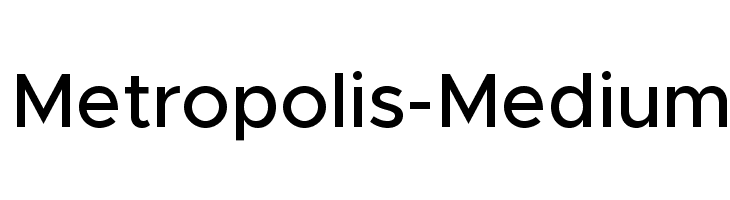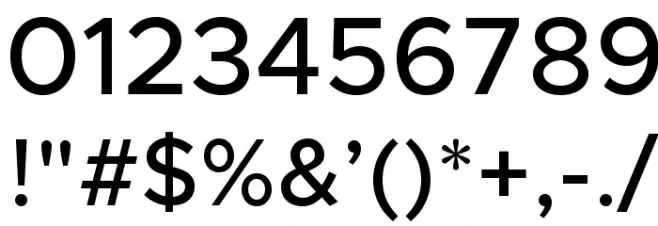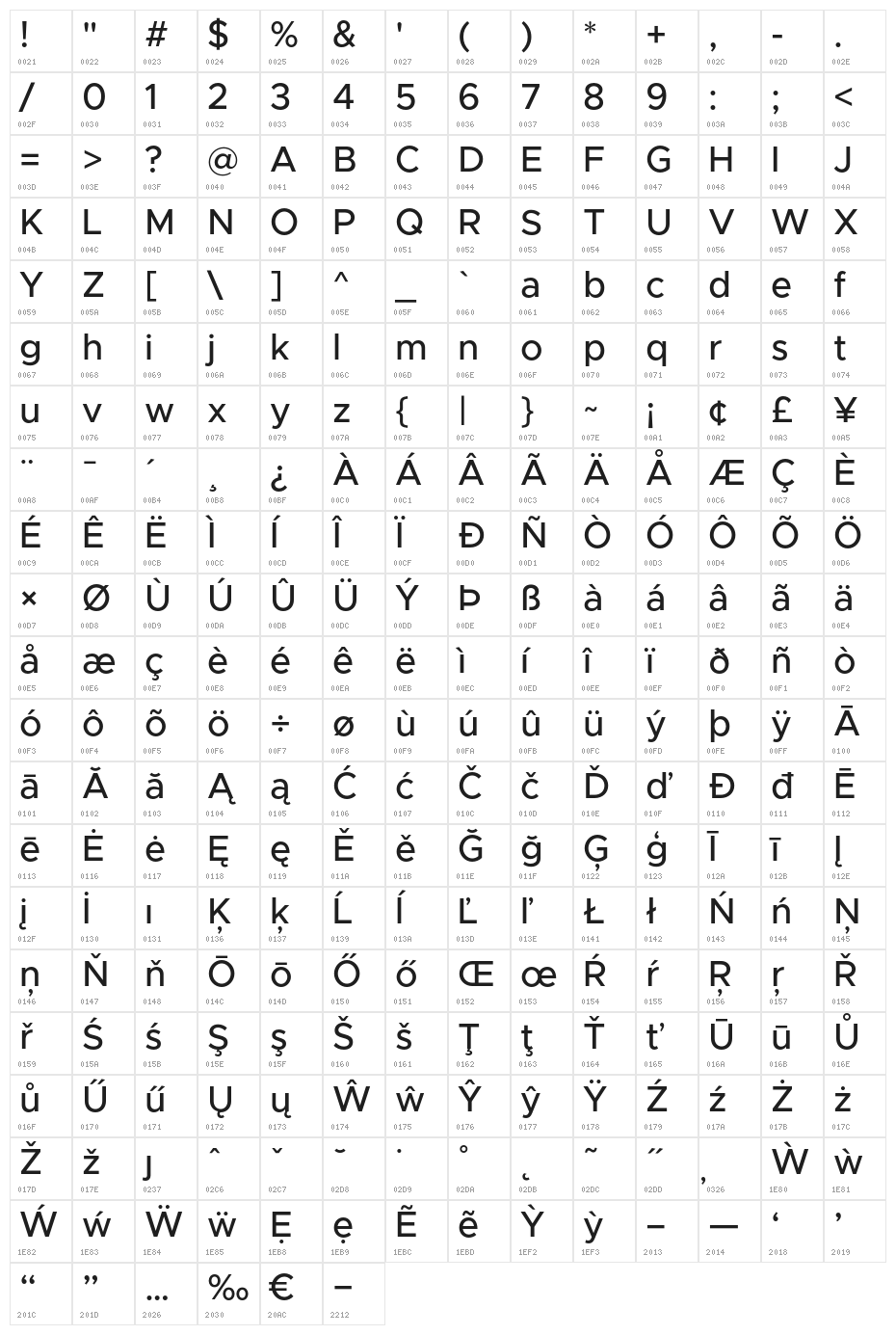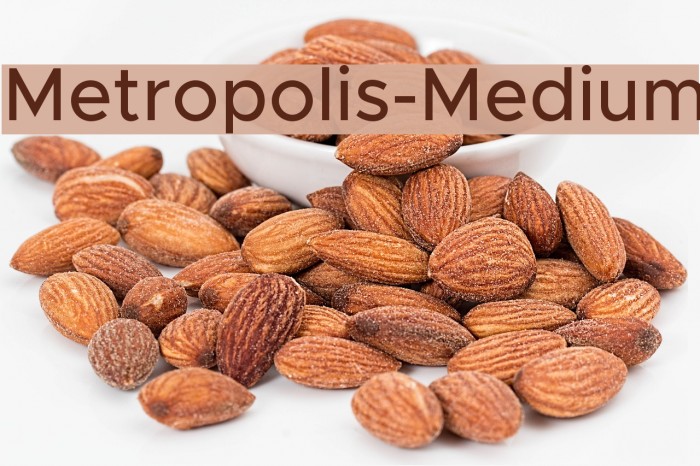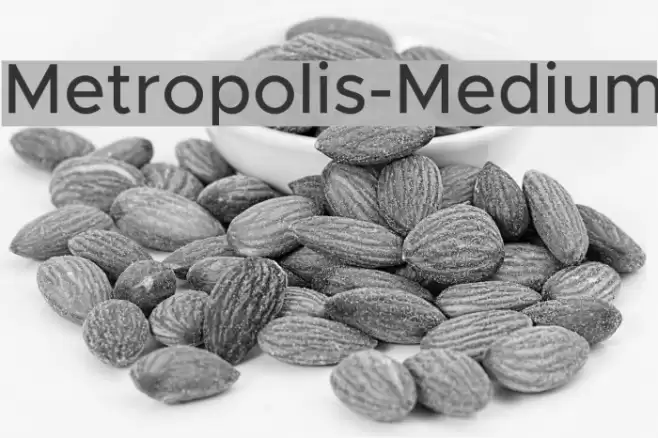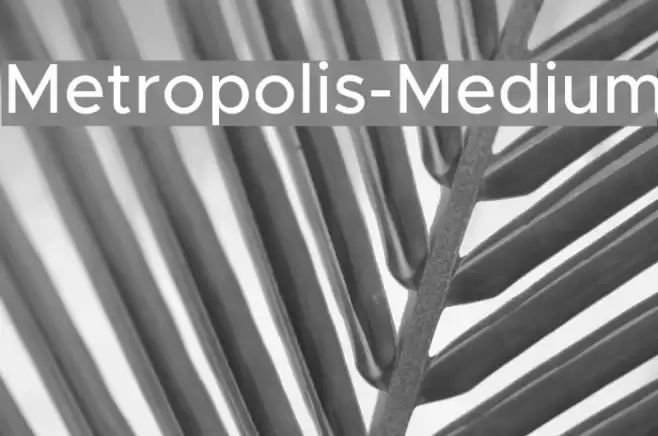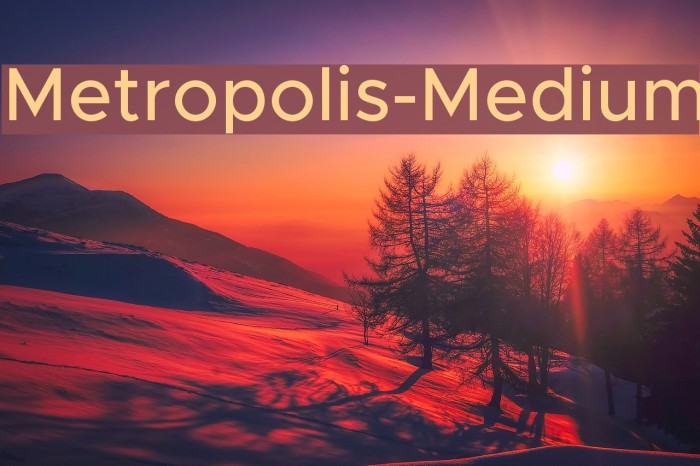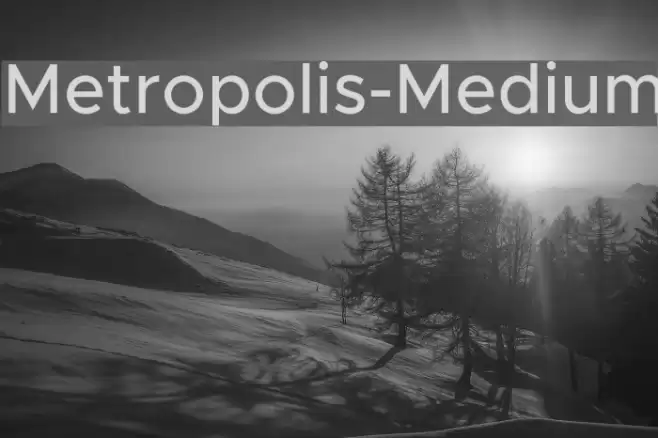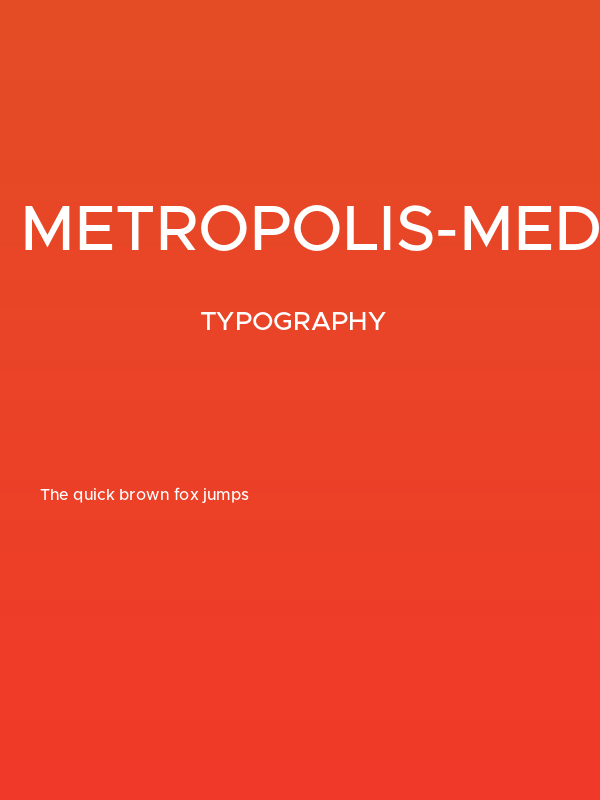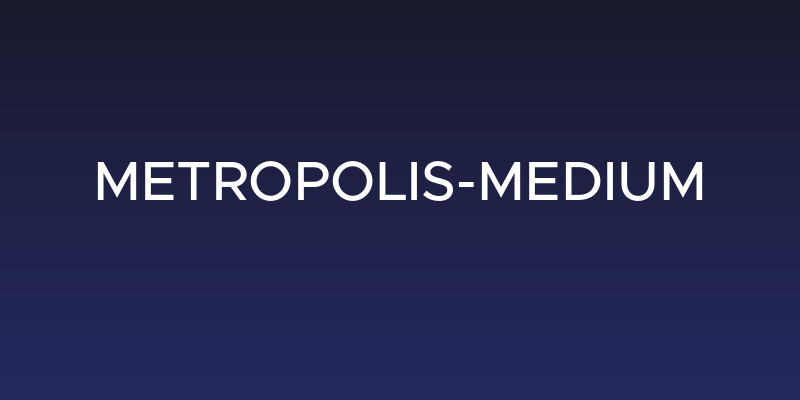
Metropolis-Medium Font
Metropolis-Medium Description
This font presents a clean and modern aesthetic with a geometric sans-serif style. The characters are well-proportioned, featuring a uniform stroke width that contributes to its sleek and contemporary look. The uppercase letters are bold and assertive, while the lowercase letters maintain a balanced and approachable appearance. The numerals are clear and easily distinguishable, making them suitable for various applications. Special characters are designed with the same attention to detail, ensuring consistency across the typeface. Overall, this font exudes a sense of professionalism and clarity, making it versatile for both digital and print media.
Use CaseHeadlines, Body text, Logos
Proposed ProjectsIdeal for branding, web design, editorial layouts, and corporate materials.